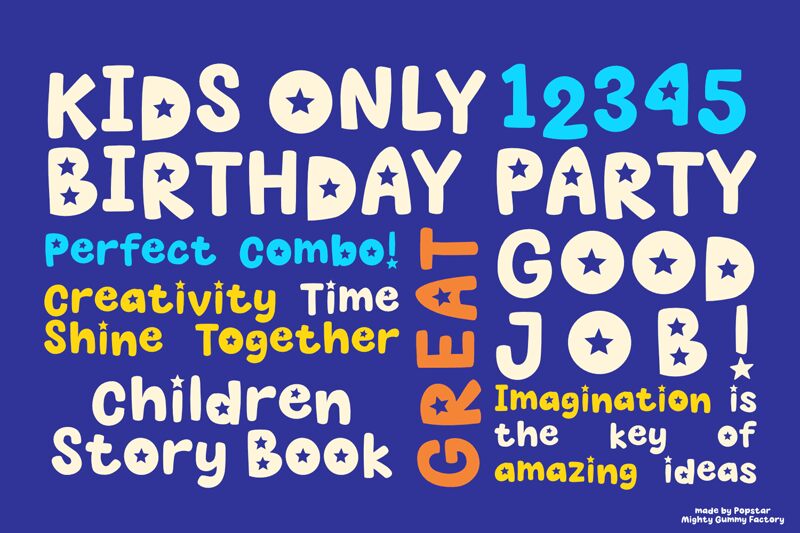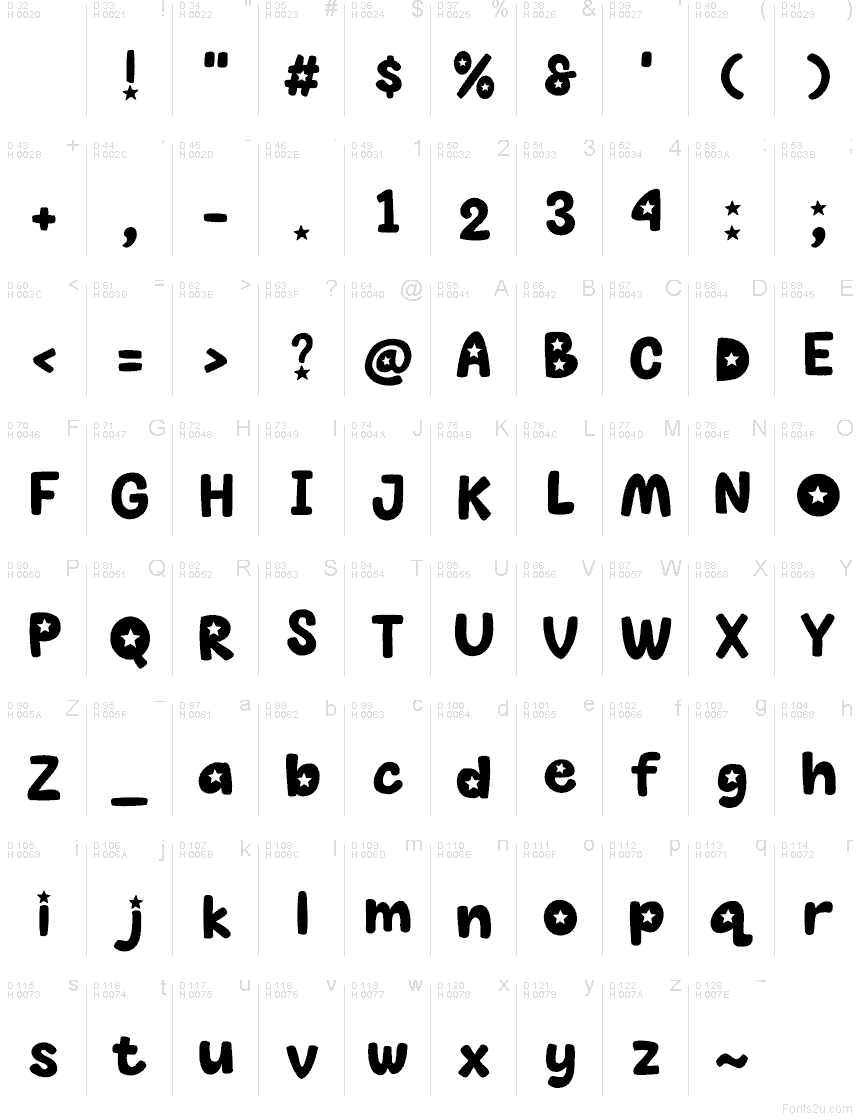
MGF Popstar font by Mighty Gummy Factory is a free cartoon display typeface that bursts off the screen like a handful of glossy candy. Chunky, rounded letters with star-shaped cutouts feel bouncy and loud, like a sing‑along chorus in typographic form. The bold weight and tight rhythm keep it readable even when you pack in big, excited words or stack short lines.
Using MGF Popstar, you can crank up the fun in kids’ party invitations, toy packaging, game logos, YouTube thumbnails, birthday banners, and playful social posts. This free font shines when set large, where the star details and pillowy curves really pop. Pair it with a clean, light sans serif for body text to keep the look bright, friendly, and easy to scan.